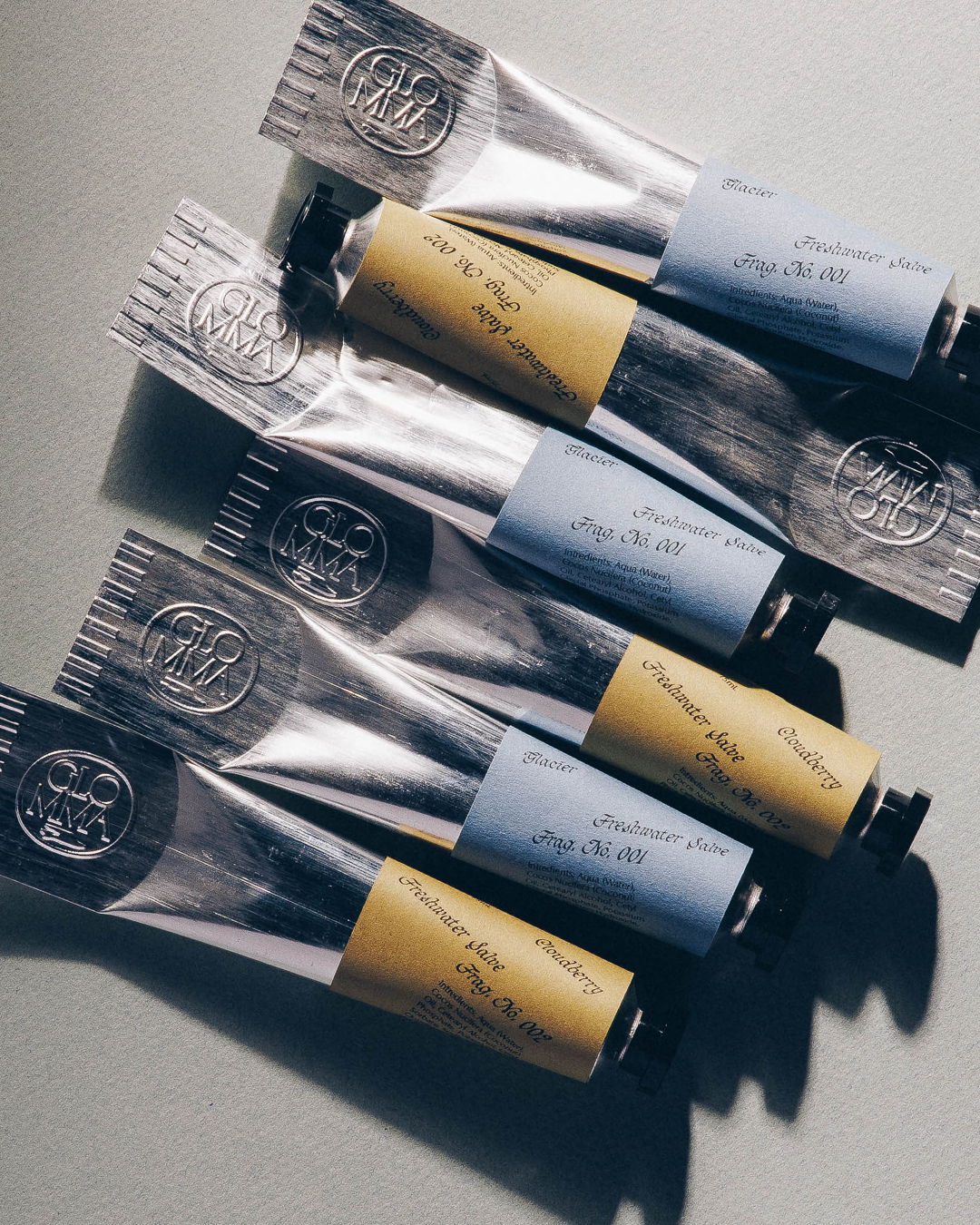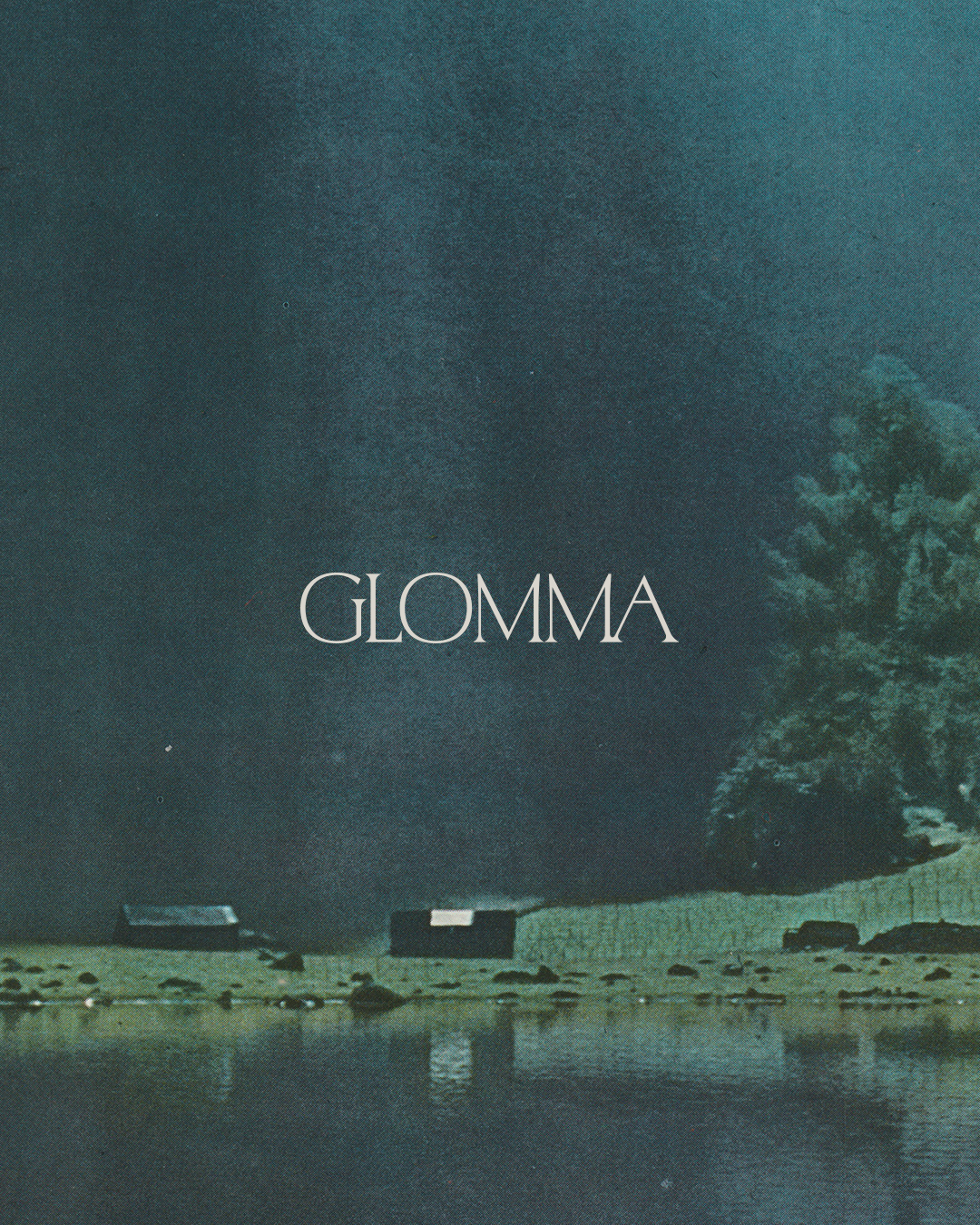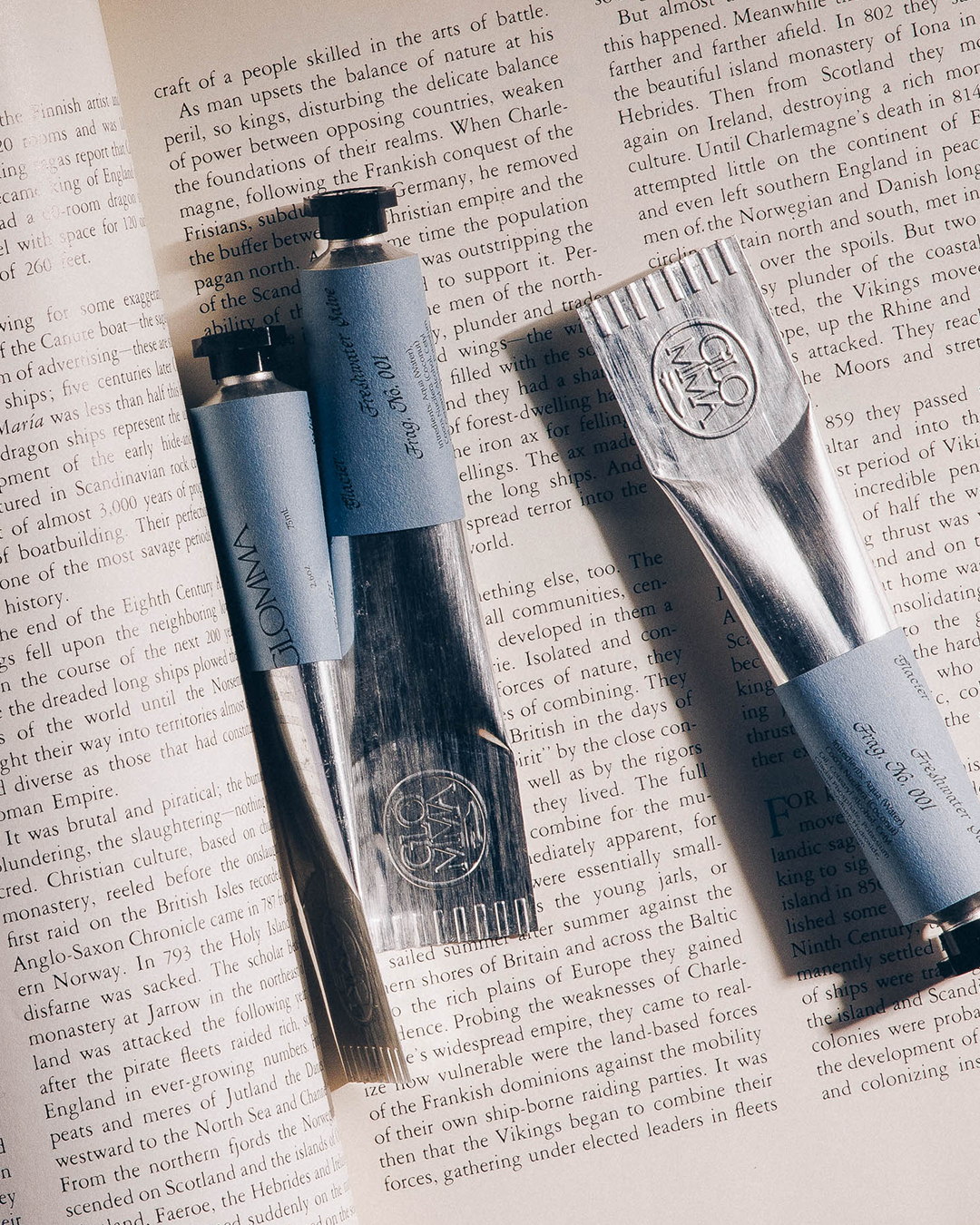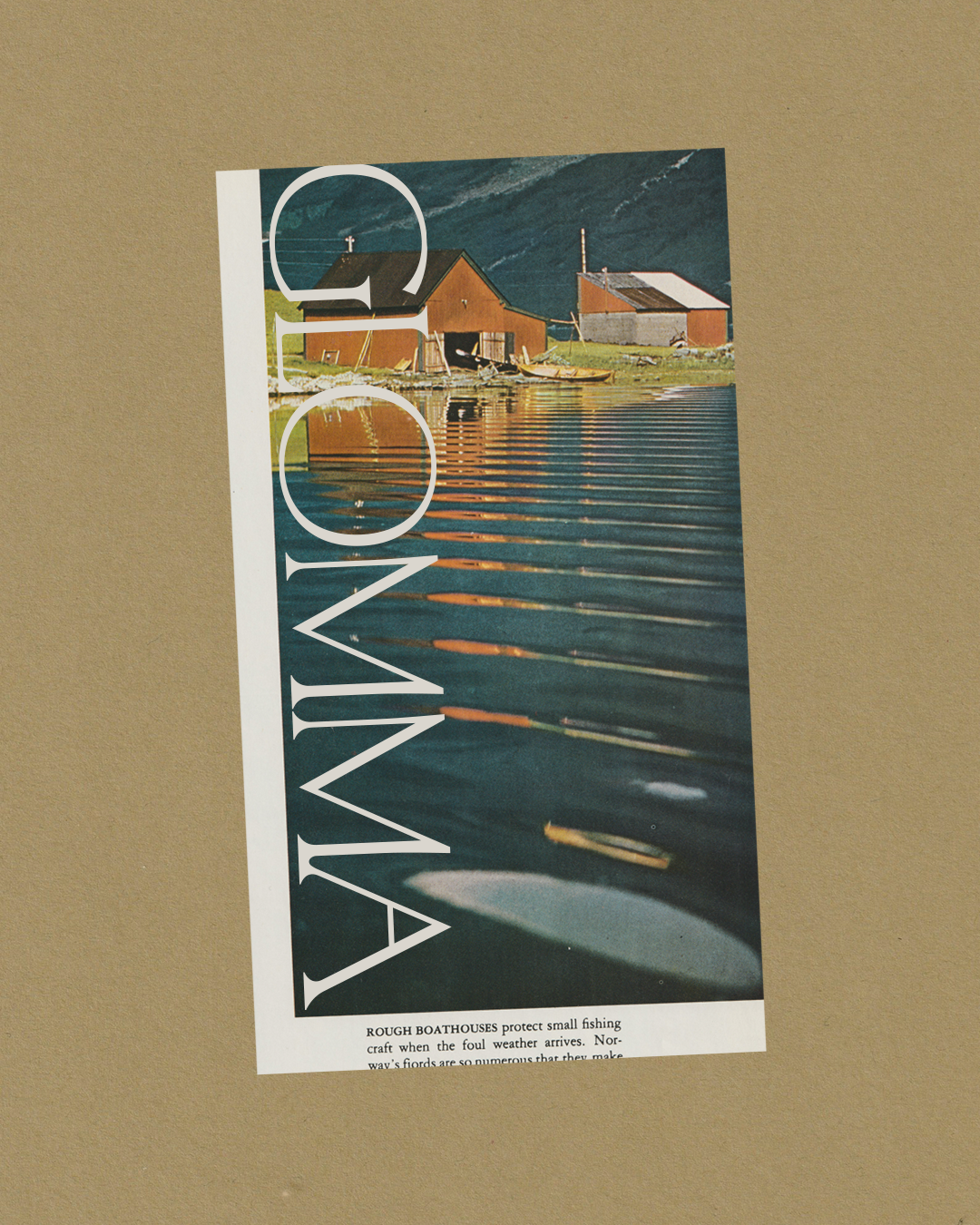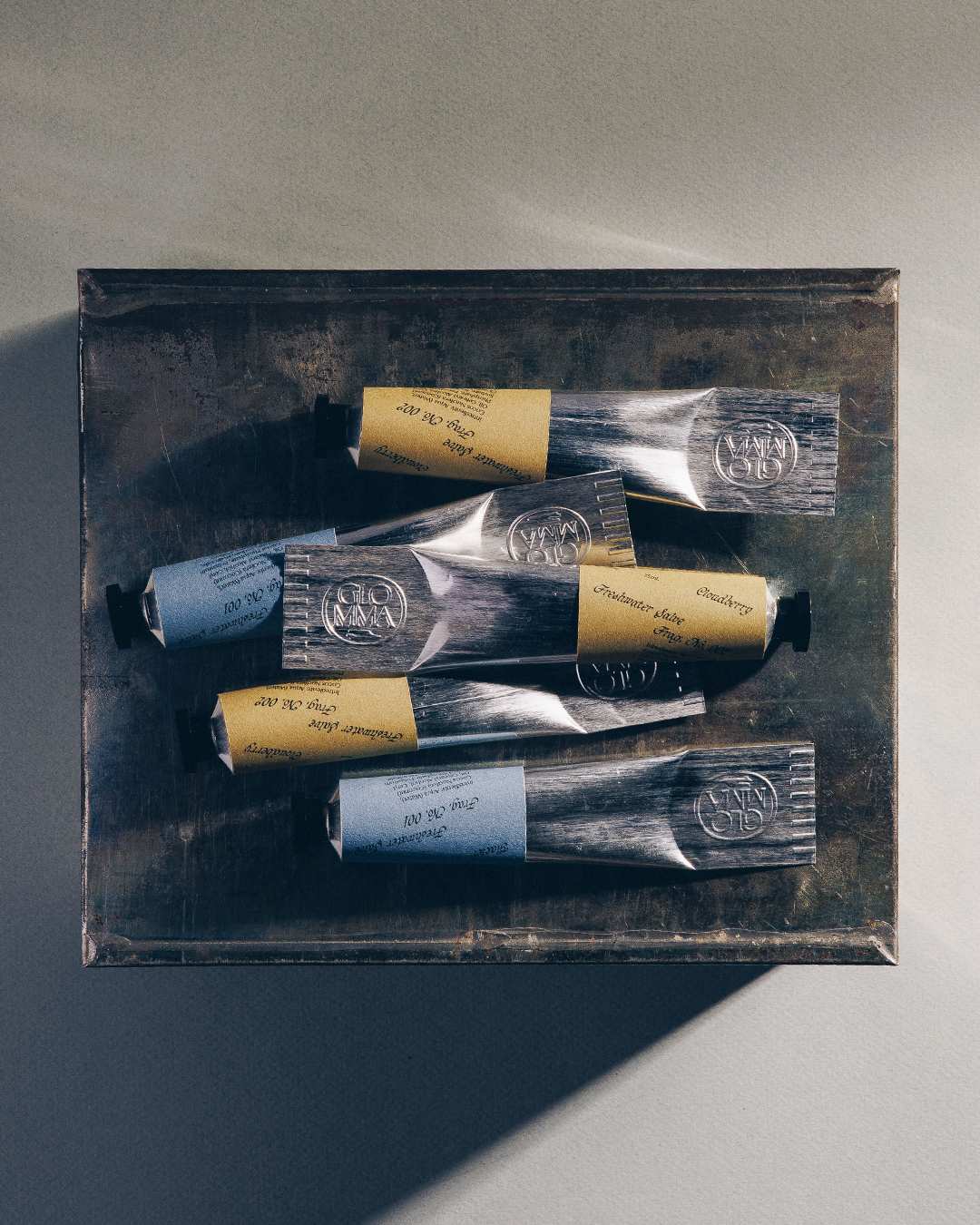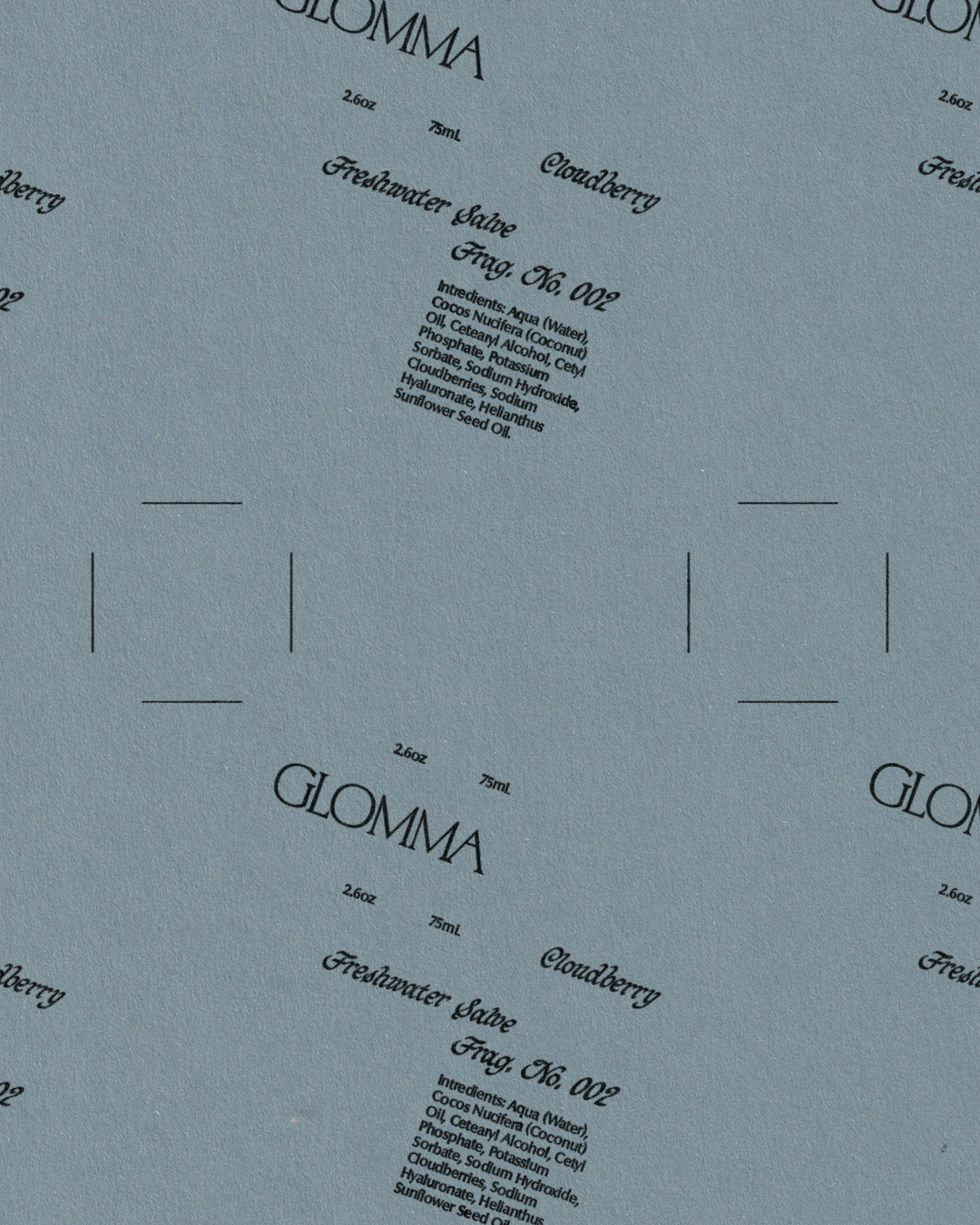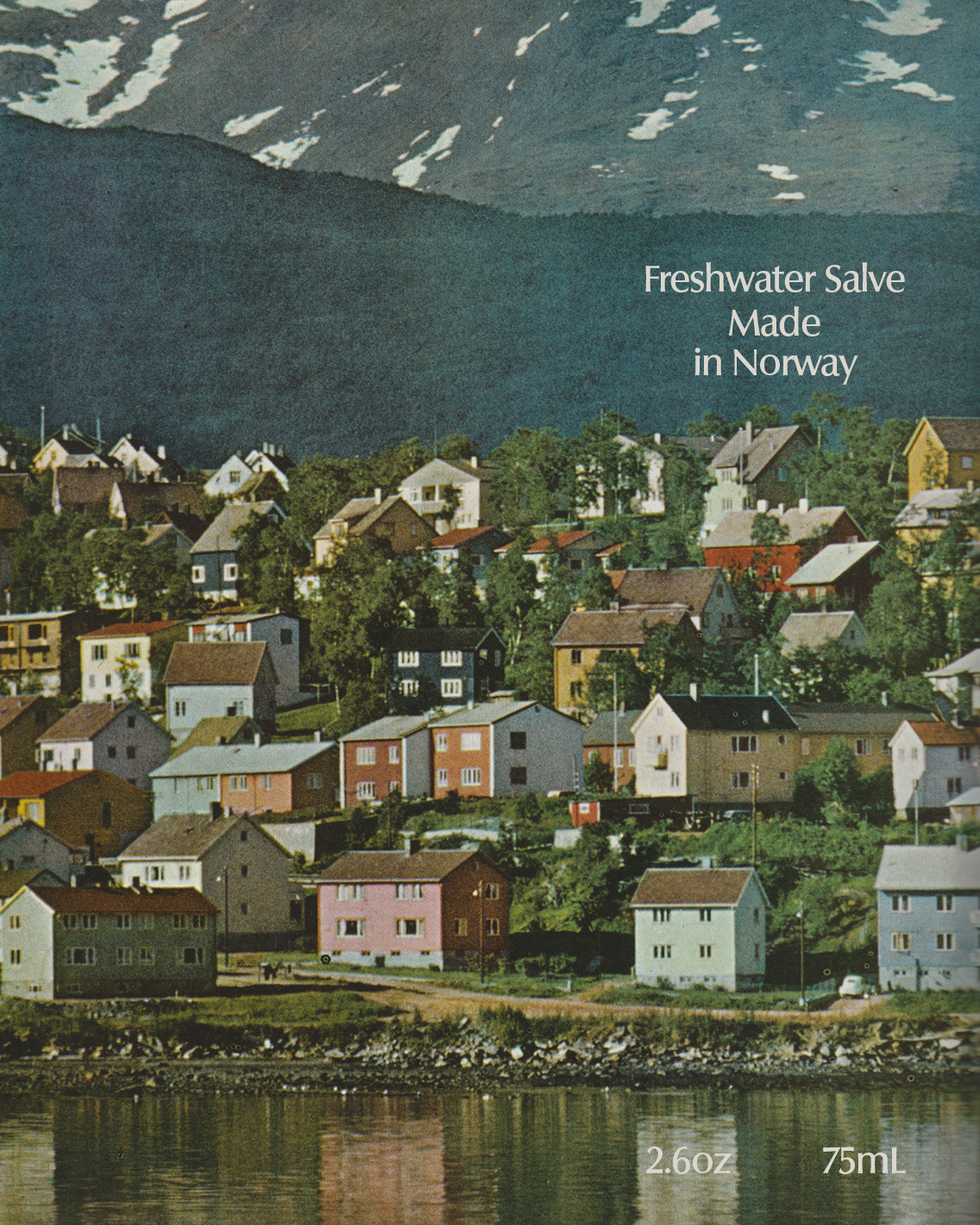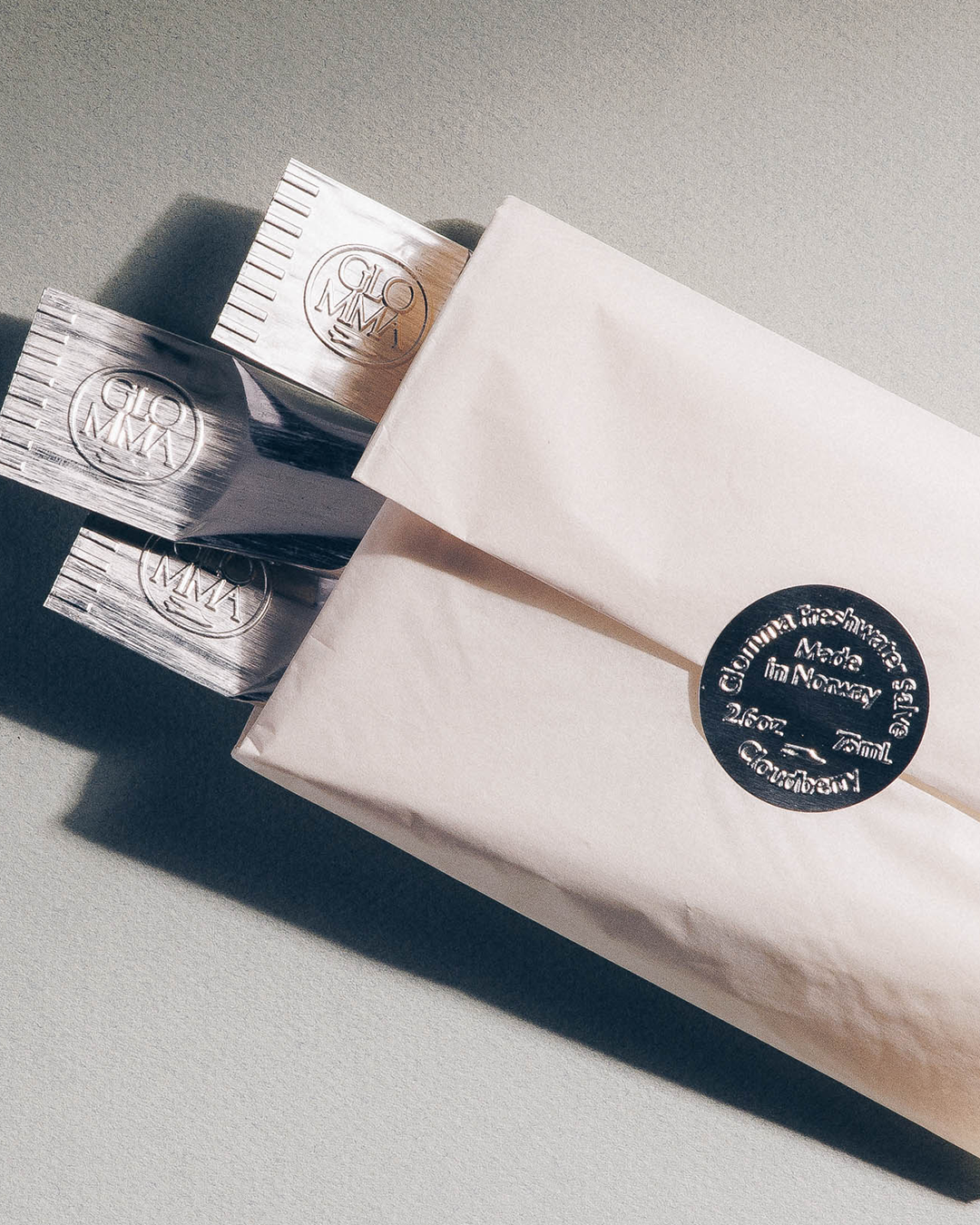
Glomma
Glomma is a Norwegian-rooted freshwater salve brand made with all organic ingredients. The custom-drawn logotype has subtly flared serifs and a delicate, evocative nature inspired by a historic book about the country's landscape. The label typography floats across the label at an angle, a nod to the idea of logs floating down the river (how Norwegian tree farms traditionally transported them). Typography inspired by utilitarian seals is blind embossed into aluminum tubes and labels, nodding to the transparency of both the brand's ethos as well as the water itself.